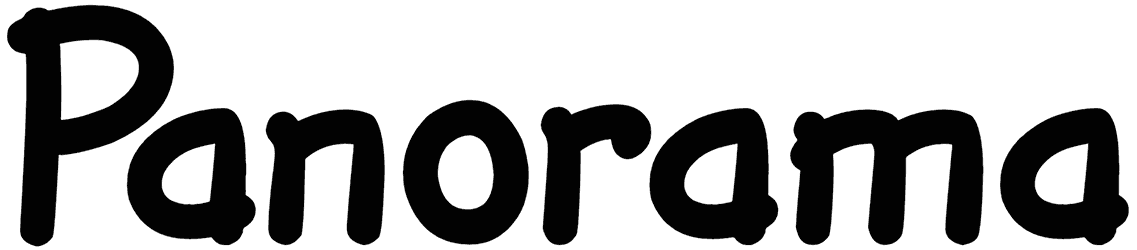
Panorama Font
Does your design need a catchy, bold, and unique headline to jump off the page? So arm yourself with Panorama. This handwritten font can bring your projects to a place that tickles the emotions of every viewer and affects the depth of their feelings.
This script font is suitable for projects that need a sincere and childlike feel that communicates with the audience. It really looks right in any format, such as posters, logos, packaging, and magazine covers.